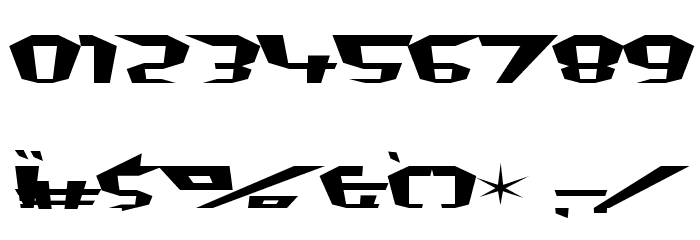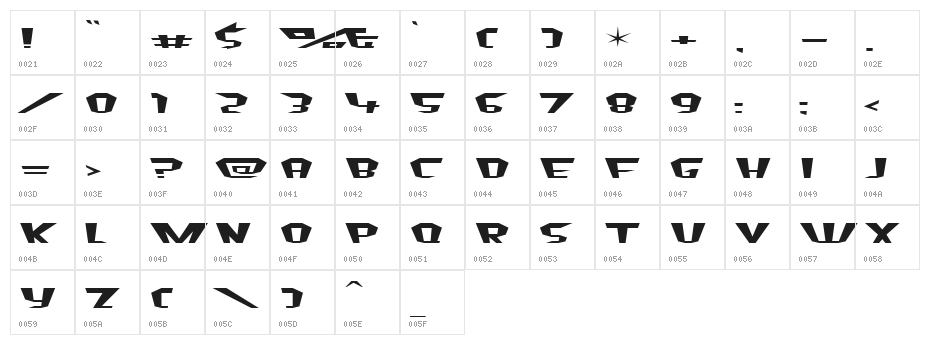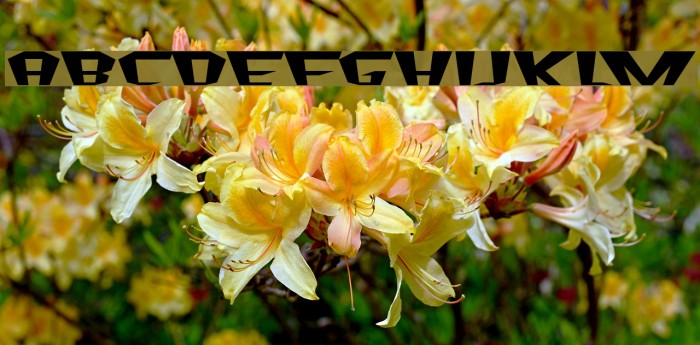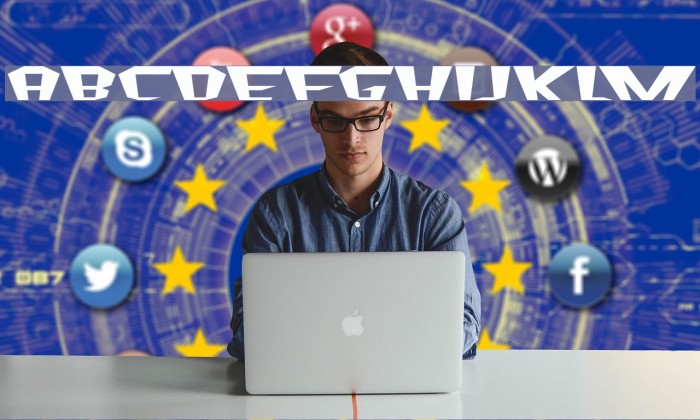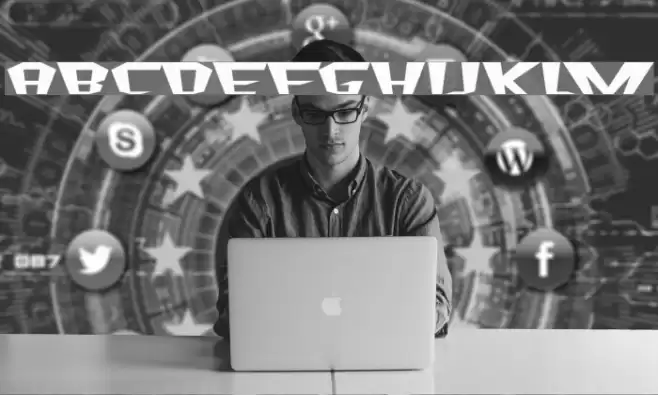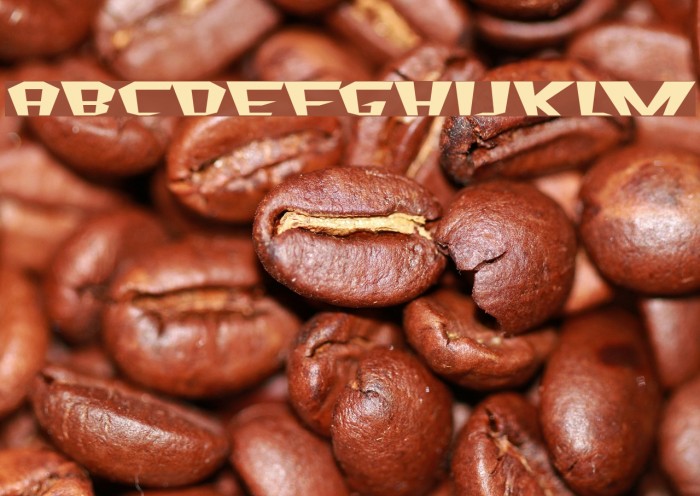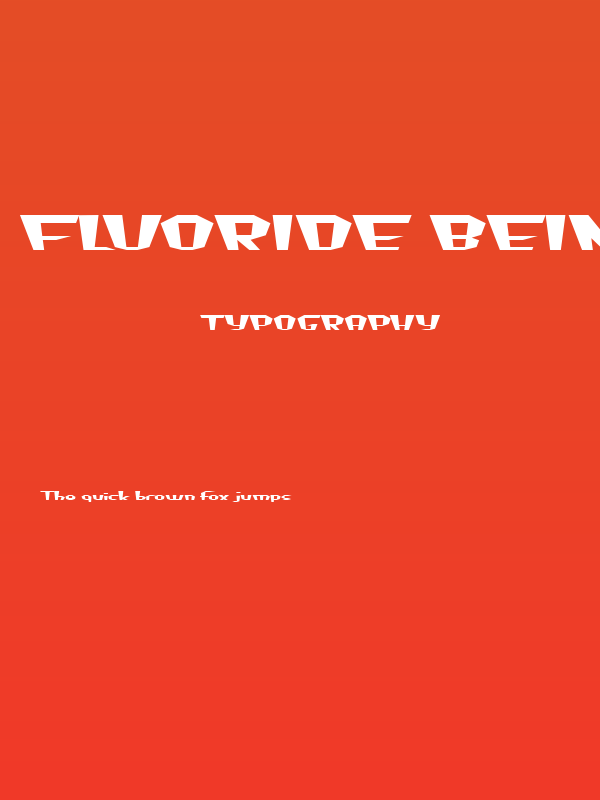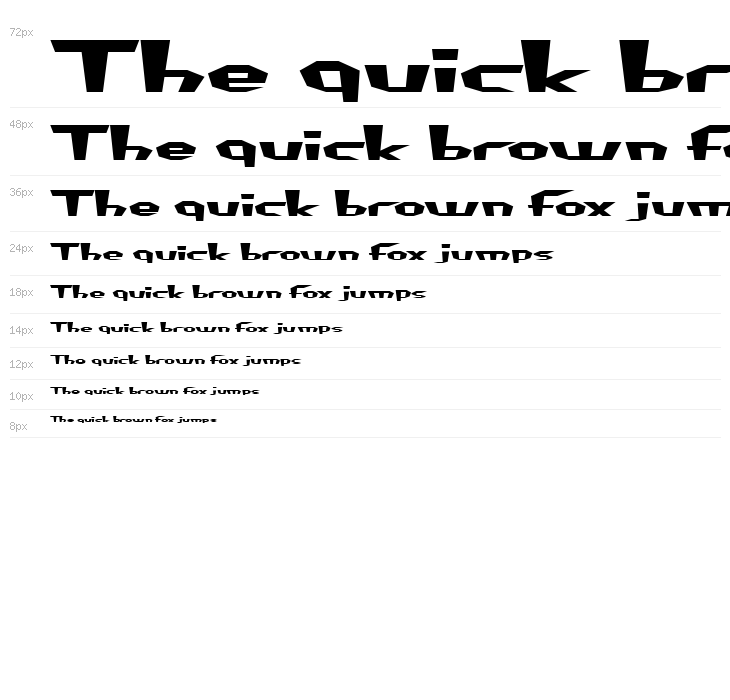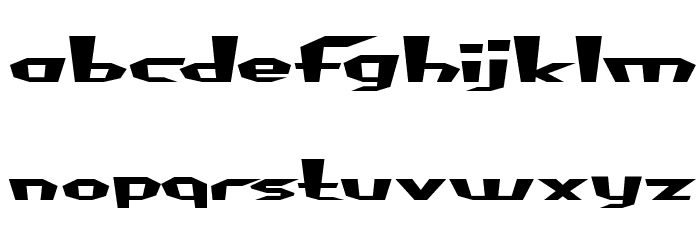
This font features a bold and edgy design with sharp, angular lines and geometric shapes. The characters have a futuristic and dynamic appearance, making them stand out with their unique style. The uppercase and lowercase letters maintain a consistent angular theme, while the numbers and special characters complement the overall aesthetic. The font's distinct look is ideal for projects that require a modern and unconventional touch.
| Proposed Projects | Ideal for sci-fi themed designs, video game graphics, posters, and branding that seeks a modern and edgy look. |